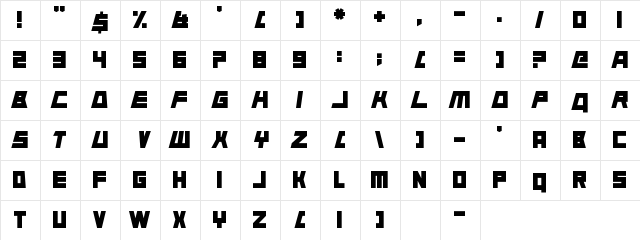
Animal Silence Regular
Design Context for Animal Silence Typeface
Animal Silence is a composed and adaptable typeface that performs quietly and consistently across a wide range of design contexts.